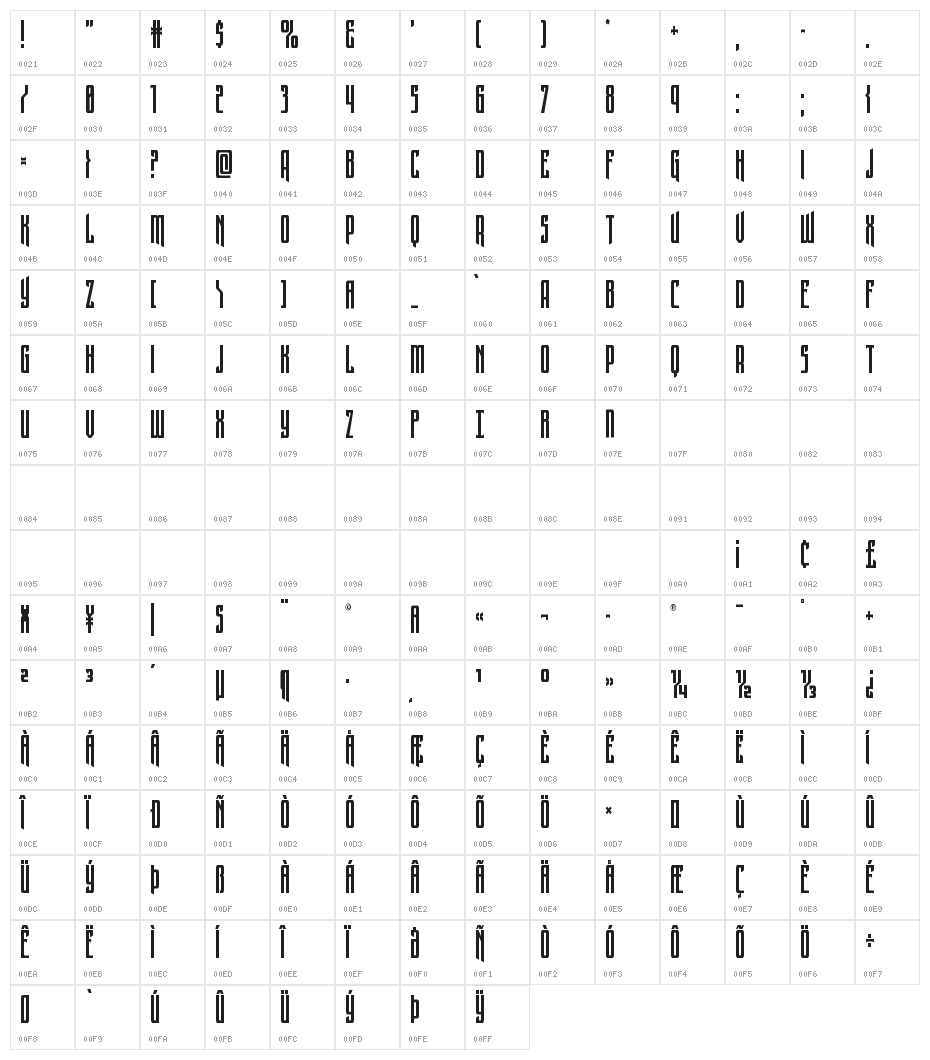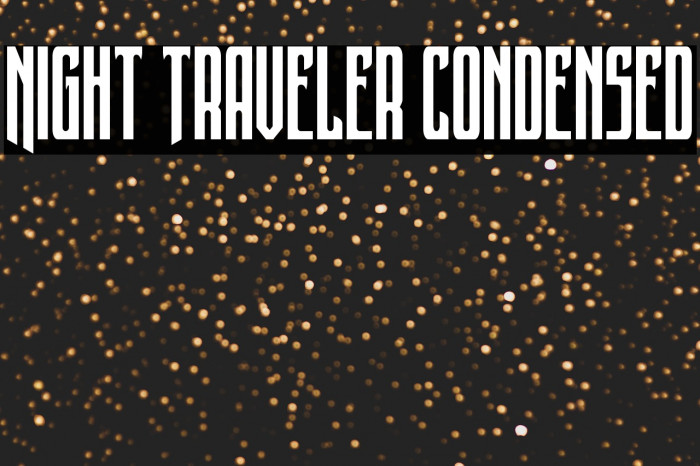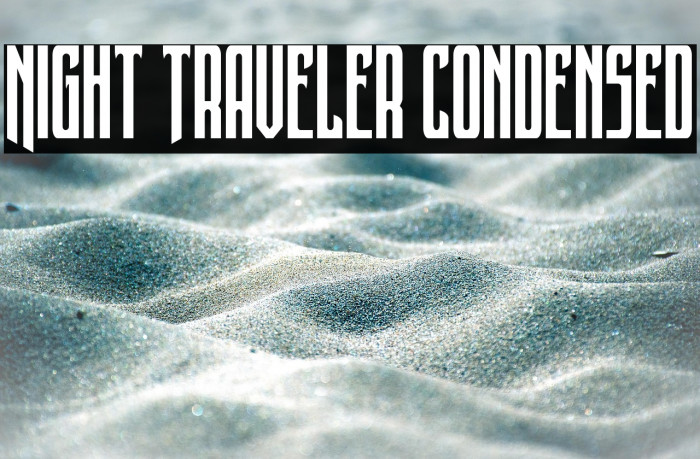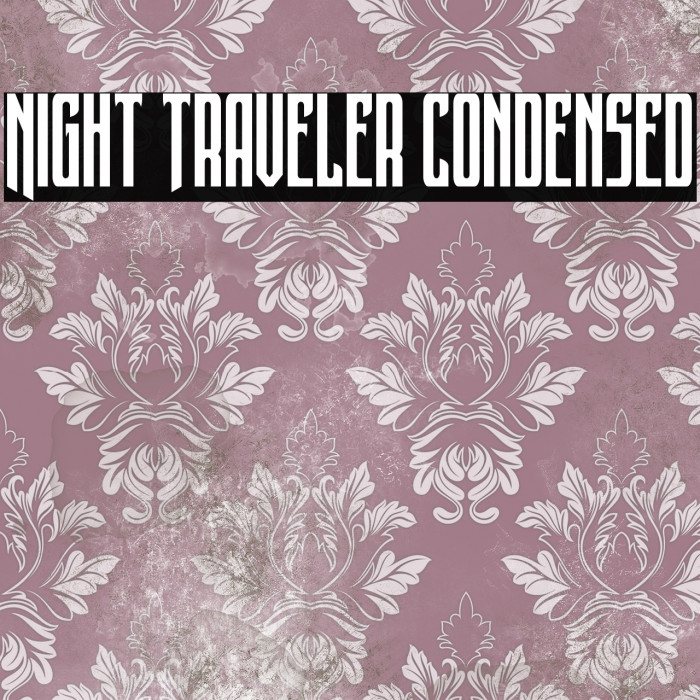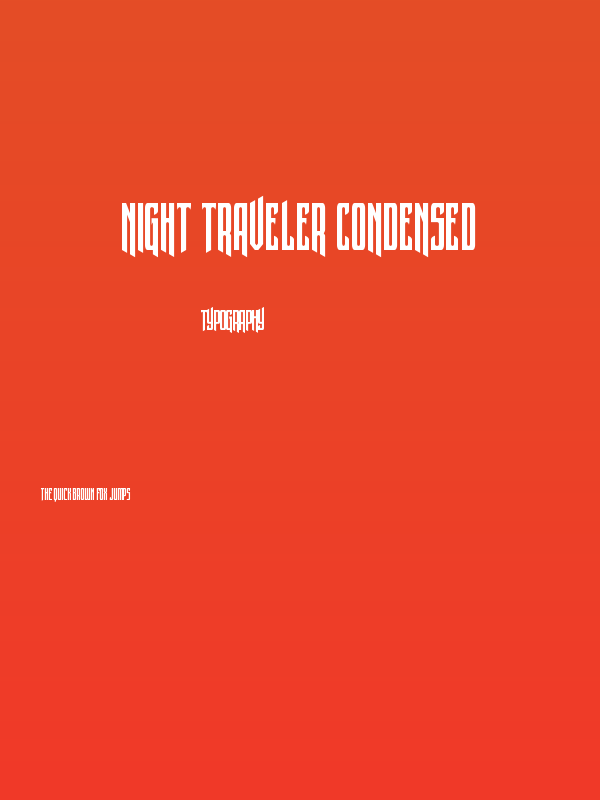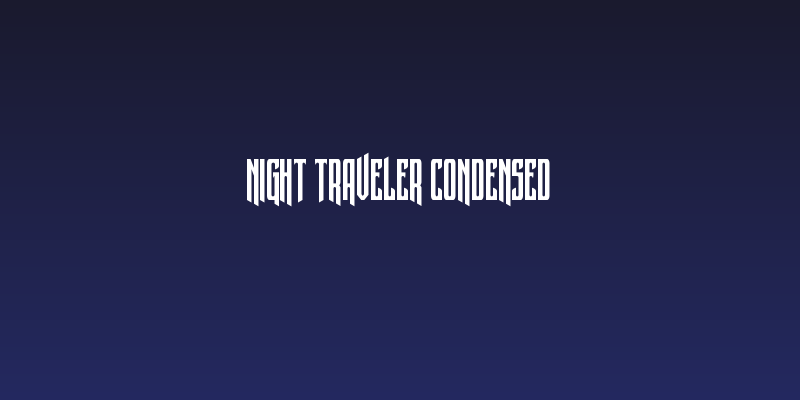
Night Traveler Condensed Font
Night Traveler Condensed Description
This font features a bold, condensed style with a distinctly modern and geometric appearance. The characters are tall and narrow, creating a strong vertical emphasis. The sharp angles and clean lines give it a futuristic and edgy feel, making it suitable for attention-grabbing designs. The uppercase letters are particularly striking, with a uniform height that enhances the font's cohesive look. The numerals and special characters maintain the same condensed and bold characteristics, ensuring consistency across all text elements.
Proposed ProjectsIdeal for posters, headlines, branding, and any design requiring a strong visual impact.